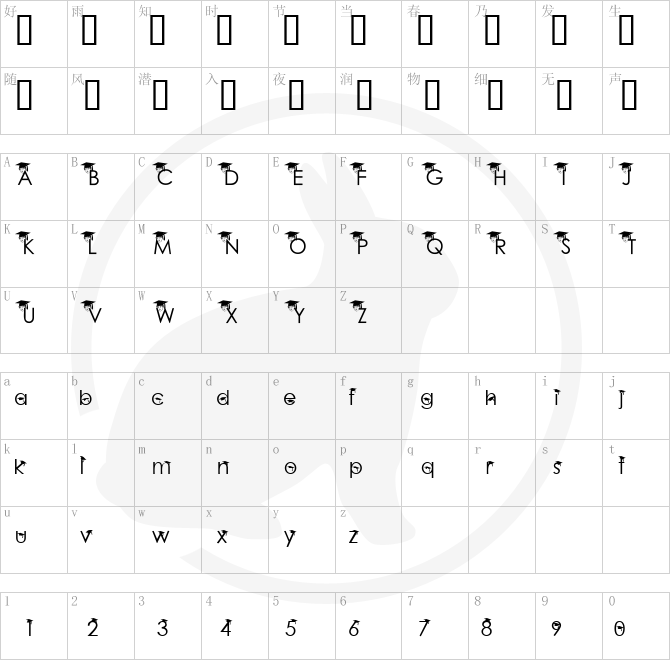
- Font Name:Baby Geniuses 2
Baby-Geniuses-2-Normal.ttf is a very beautiful artistic font, Baby-Geniuses-2-Normal.ttf is widely used in the design and printing of various books and pictures,Baby-Geniuses-2-Normal.ttf has a strong visual impact,Baby-Geniuses-2-Normal.ttf is a commonly used font in newspapers, magazines and books, and is used in posters, e-commerce Poster design, store design, logo design, font design and other fields.Baby-Geniuses-2-Normal.